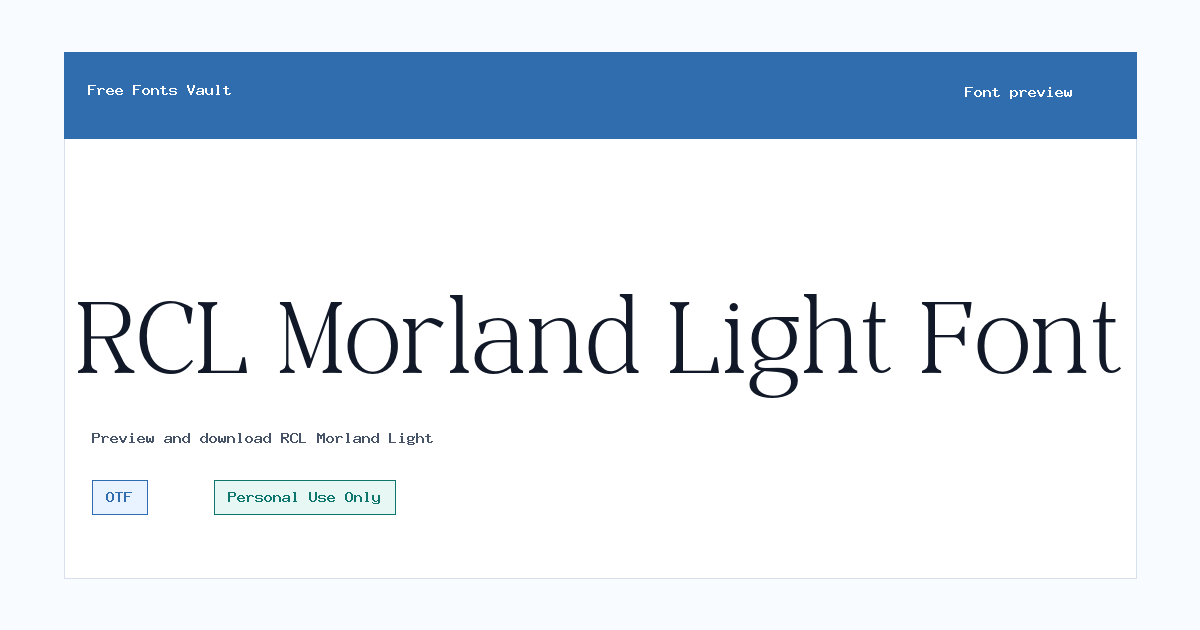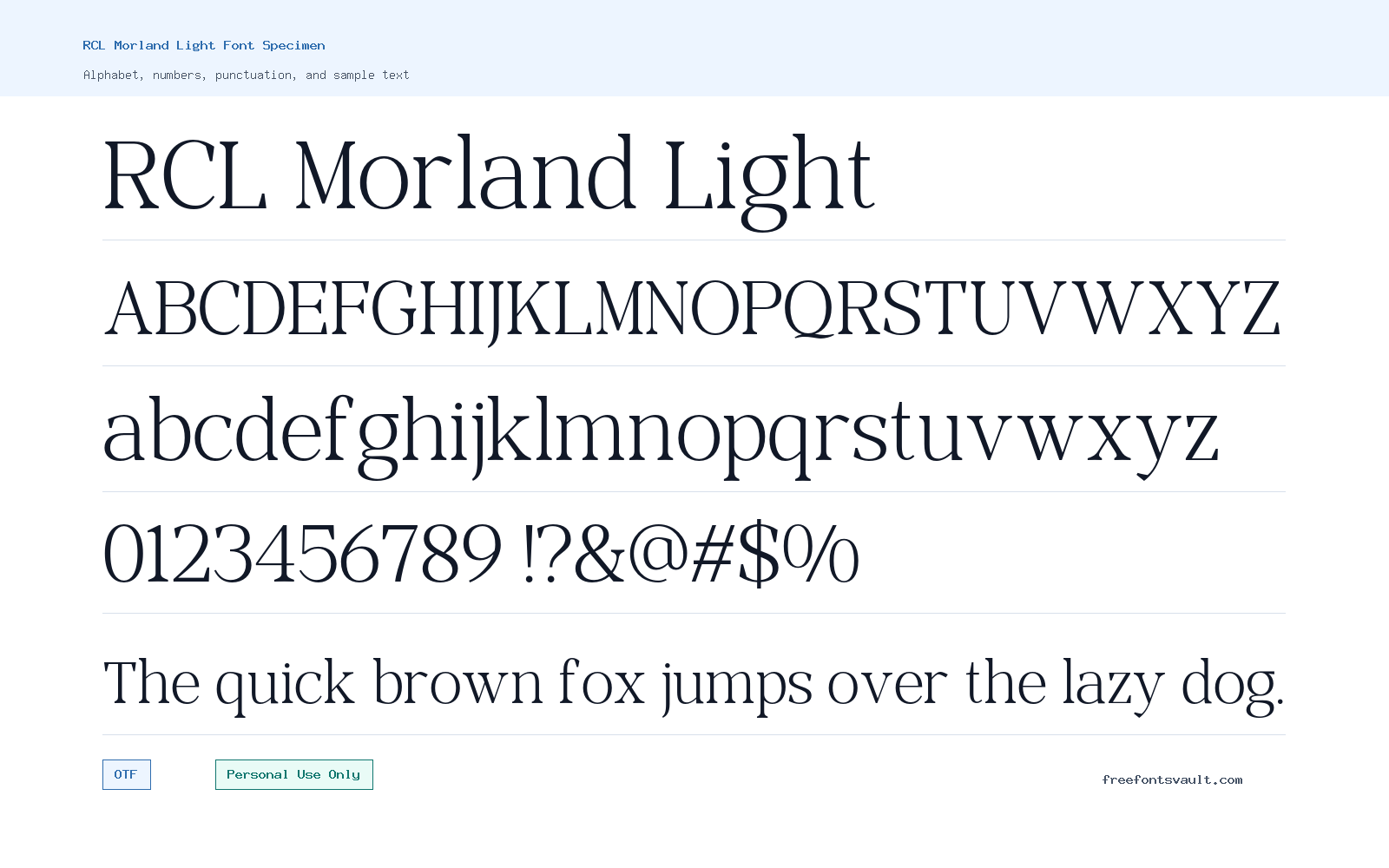
RCL Morland Light
- Designer Bakhrudin Ja'far
RCL Morland Light font.
RCL Morland Light is a light serif font from the Morland family, designed for refined text settings where a softer weight is more useful than a heavy display face. It includes both upright and italic styles, giving designers a simple pair for titles, pull quotes, invitations, and elegant short-form layouts.
About RCL Morland Light
RCL Morland Light has the delicate feel expected from a light serif: slim strokes, a calm reading texture, and enough contrast to make headings feel polished without looking loud. The light weight works best when it has room to breathe, so it is a good choice for large titles, editorial headers, name cards, boutique-style graphics, and other designs where the type is meant to feel clean and graceful.
Because this download includes regular and italic OTF styles, you can build a more complete layout than with a single-style display font. Use the upright style for main words or headings, then bring in the italic for emphasis, captions, short quotes, or secondary lines. As with many light serif fonts, test it carefully at small sizes: thin strokes can lose clarity on low-resolution screens, busy images, or high-contrast backgrounds. For longer body text, pair it with a sturdier sans serif or a more readable text serif.
- Light serif weight with a refined, understated look for display use
- Includes upright and italic OTF styles for simple typographic contrast
- Editorial headings, quote graphics, invitations, and refined branding mockups
- Short display text where a light serif can be shown at medium to large sizes
The designer is listed as Bakhrudin Ja'far, with Roomspace Creative Lab provided as the designer website. No foundry name is listed for this font page.
For the best preview, test RCL Morland Light with short words, mixed case, and a few punctuation marks before downloading. Light serif fonts often look strongest in larger sizes with generous spacing. Avoid placing it over complex photos unless you add enough contrast behind the text. If you use the italic style, keep it for emphasis rather than entire long paragraphs, as italic light strokes can become harder to read in smaller settings.
What is RCL Morland Light best used for?
It is best for short display settings such as headings, invitations, quote designs, editorial titles, and elegant layout mockups. It is less ideal for tiny text or long paragraphs.
Who designed RCL Morland Light?
The designer is listed as Bakhrudin Ja'far. The provided designer website is Roomspace Creative Lab.
Should I use the italic style for body text?
Use the italic style sparingly for emphasis, captions, or short quotes. For long reading text, pair the font with a more robust body typeface.